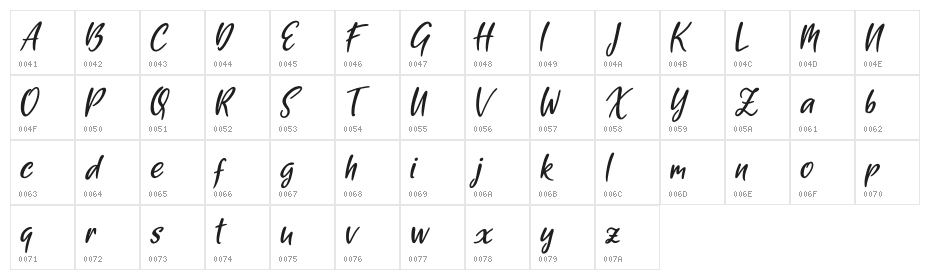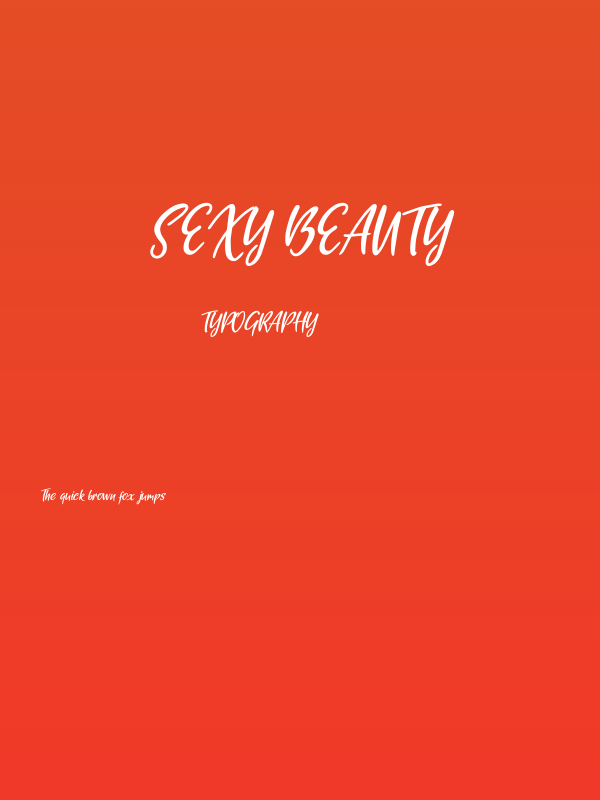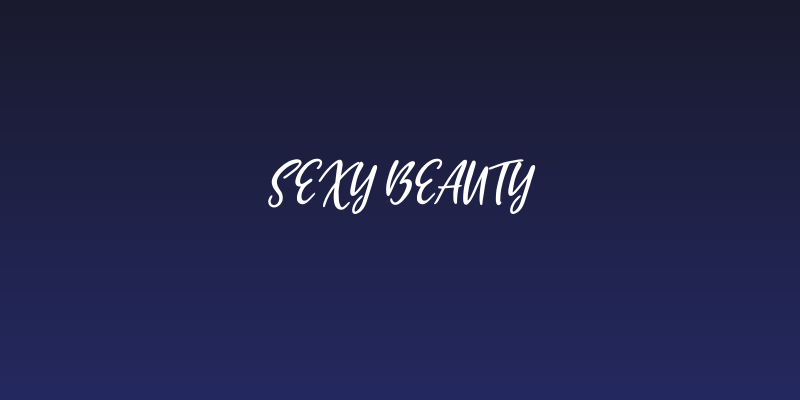
Sexy Beauty Font
Sexy Beauty Description
This font exudes a lively and expressive character with its bold, flowing script style. The letters are interconnected, creating a sense of movement and fluidity, reminiscent of handwritten calligraphy. The strokes are thick and consistent, giving the font a strong presence while maintaining elegance. Its playful yet sophisticated appearance makes it suitable for creative projects that require a personal touch. The font's design is both modern and timeless, making it versatile for various applications.
| Proposed Projects | Ideal for branding, invitations, greeting cards, and social media graphics. |